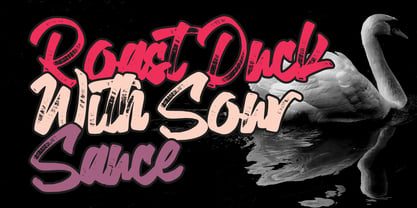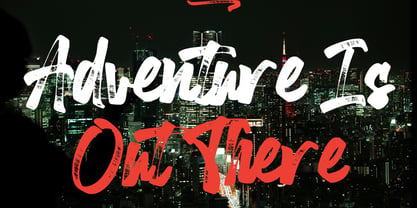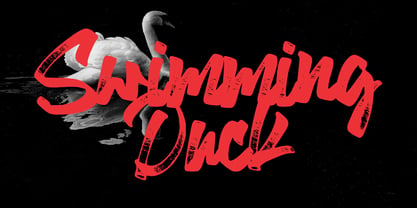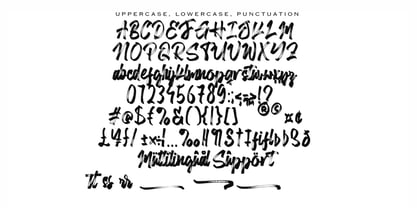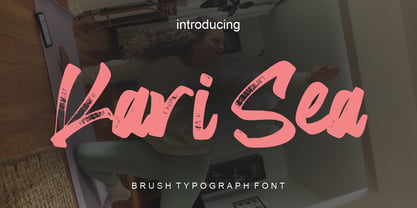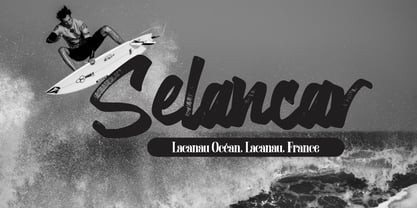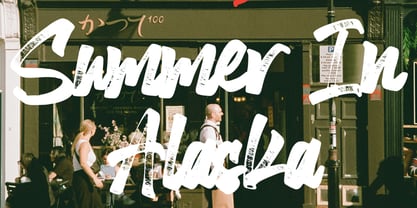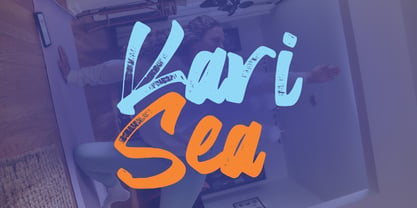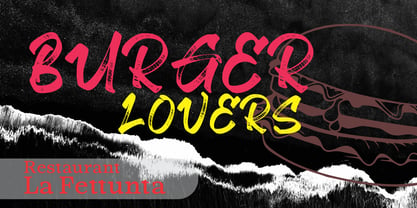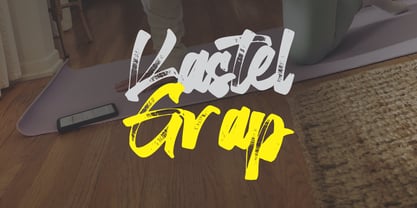
Kari Sea
The Kari Sea Font Family was designed by Yusliana M Isa and published by Gian Studio. Kari Sea contains 1 styles. More about this family
Kari Sea is a classic/script style brush font, or a font with characteristic brush strokes. In the world of typography, this font has a flowing, handwritten feel. It is an elegant, classy, ??and refined script font.
Characteristics: It has patterned, thin, and flowing strokes. This font gives a personal, aesthetic, and premium feel.
Usage: Perfect for wedding invitation designs, fashion brand logos, aesthetic quotes, greeting cards, and even digital creative projects.
Usage: Often used for titles, vintage posters, classic product logos, or retro-elegant designs.